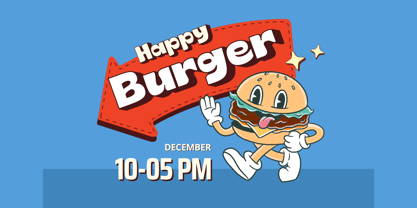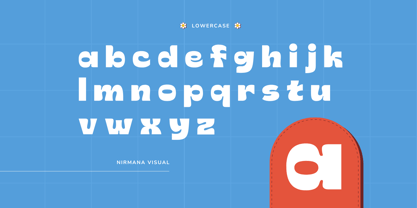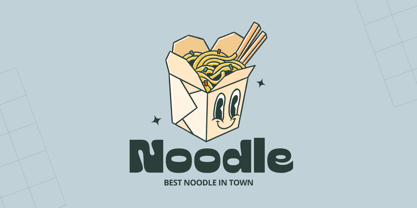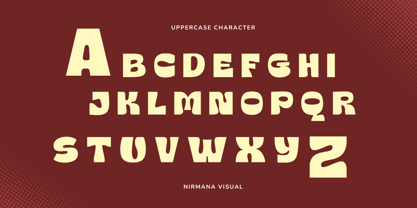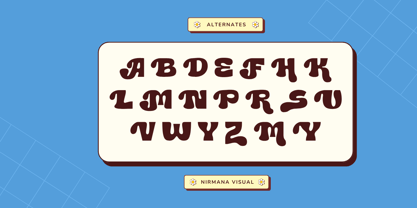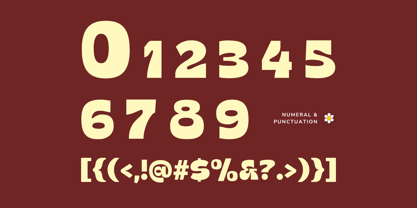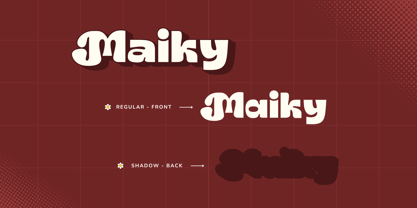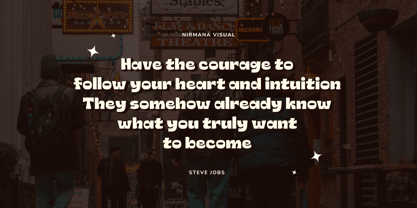
Maiky Retro
The Maiky Retro Font Family was designed by Sigit Dwipa and published by Nirmana Visual. Maiky Retro contains 2 styles and family package options. More about this family
Maiky Retro is a bold and stylish retro font crafted especially for branding and logo design. With a nostalgic 70s-80s vibe and striking extrude feature, it brings a vintage yet modern appeal to any project. Perfect for making standout headlines, posters, or product branding, Maiky Retro adds personality and charm with its unique character and strong visual impact. Let your brand shine with this timeless classic!